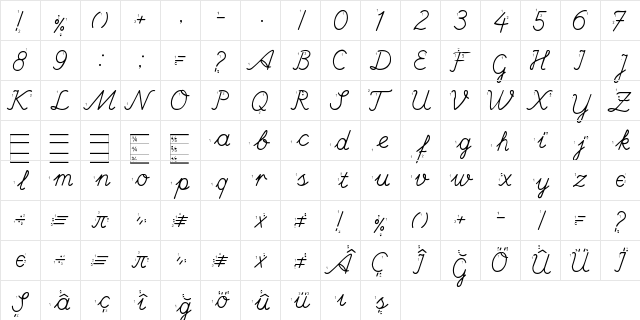
Hand Escort Regular
Design Context for Hand Escort Typeface
Hand Escort flows with the natural rhythm of handwritten lettering, making it ideal for designs that call for warmth and personal expression.
Font Pairing: Combine Hand Escort with a simple geometric sans for maximum contrast — the tension between flowing curves and clean structure is a classic typographic pairing.
Pro Tip: Pair Hand Escort with a clean sans-serif for supporting text. The contrast between fluid script and geometric structure creates an elegant typographic hierarchy.